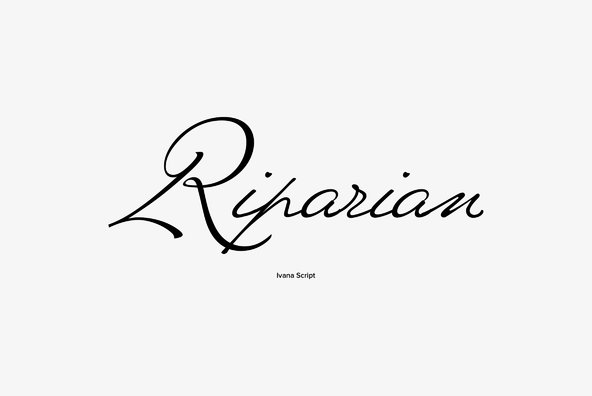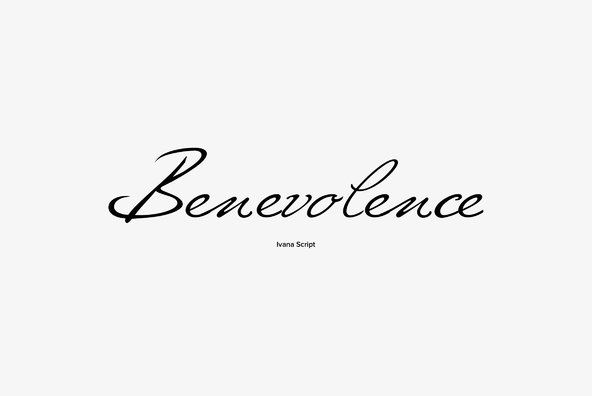
Ivana Script
Foundry: profonts
Ivana Script is a clearly calligraphic handwriting script, designed by type designer Ivana Kudelkova from Prague, for the profonts library. Ivana Scirpt has very tall ascenders and descenders with additional widely cantilevered stroke endings stressing its calligraphic character.